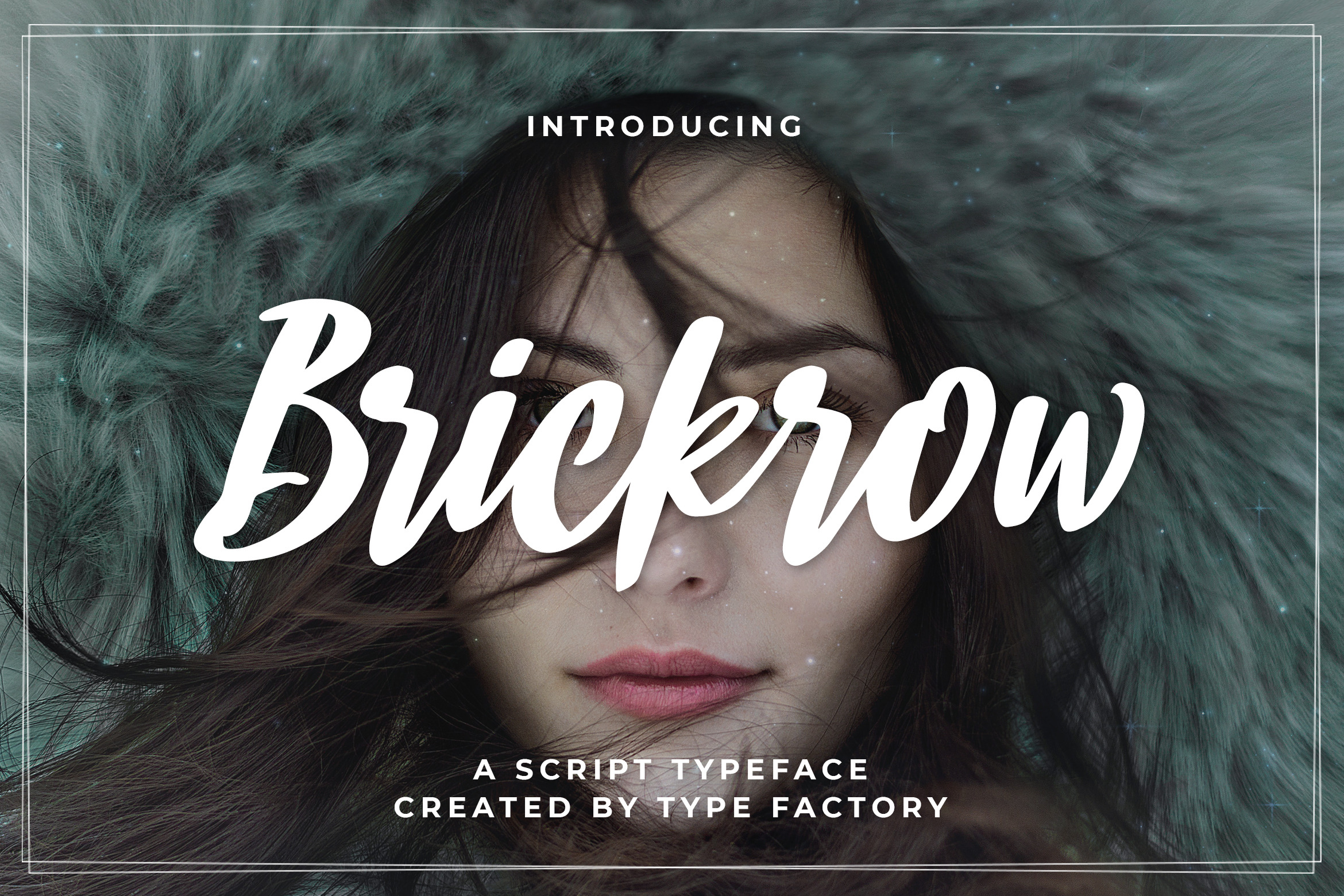
Brickrow - A Script Typeface
Brickrow is a bold script handwritten font. It can be used for various purposes such as logos, headings, letterhead, signage, labels, news, posters, badges and so much more.